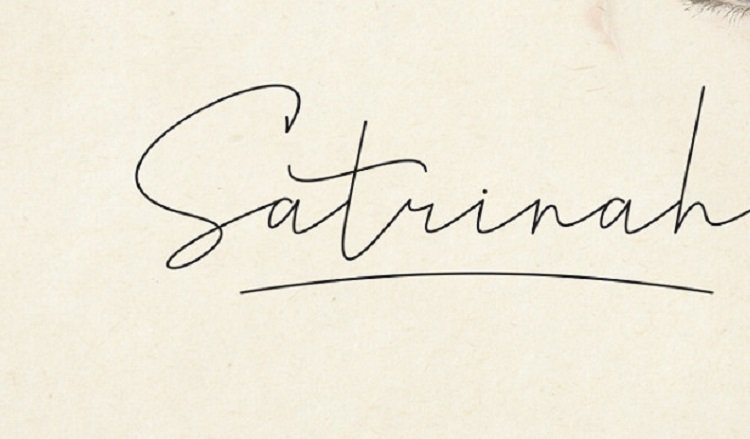
Satrinah – Signature Font
Satrinah Font comes with uppercase letters, lowercase letters, numbers, punctuation, ligature and multi lingual support.
With modern script style this font will perfect for many different project, example: invitations, greeting cards, posters, name card, quotes, blog header, branding, logo, fashion, apparel, letter, stationeryand more !